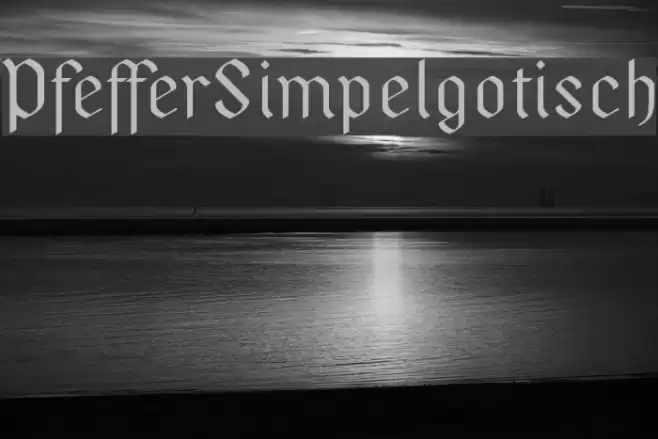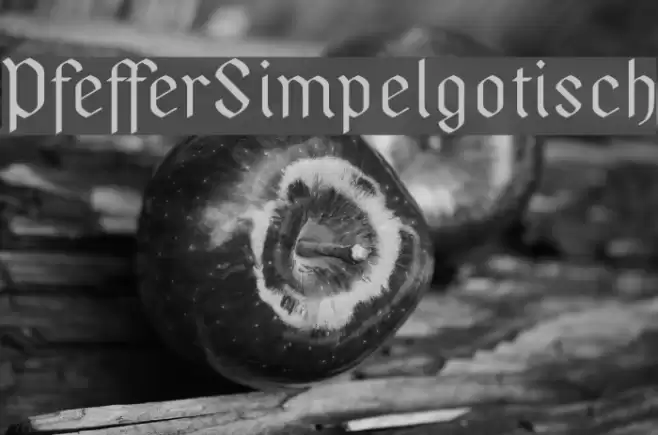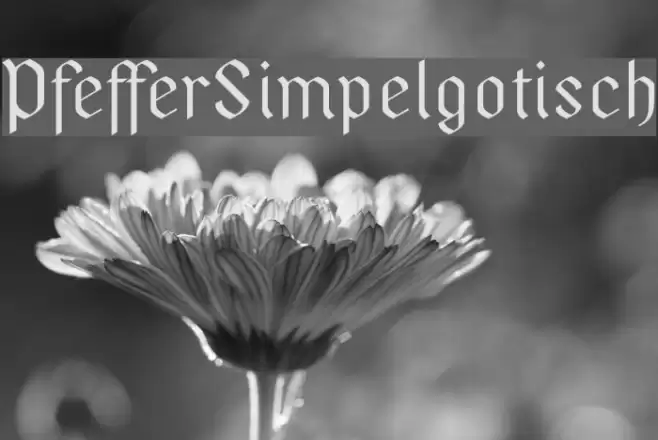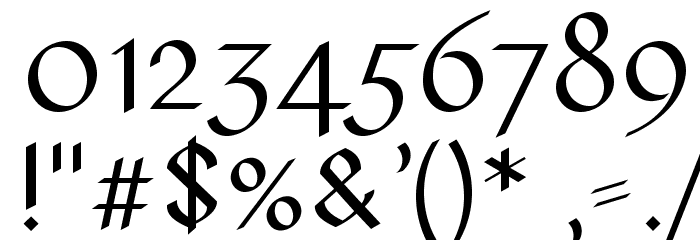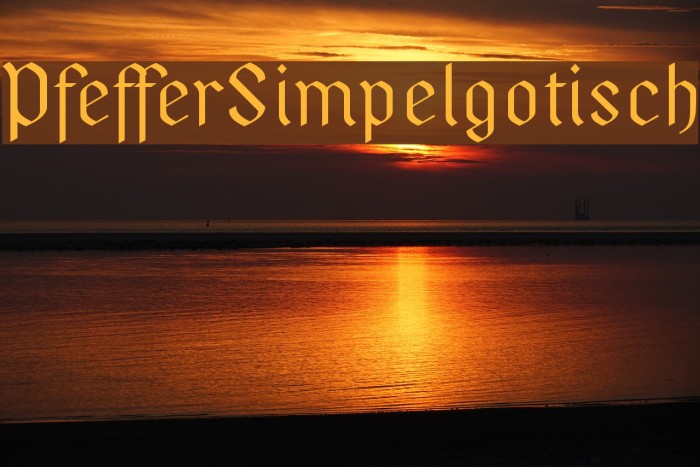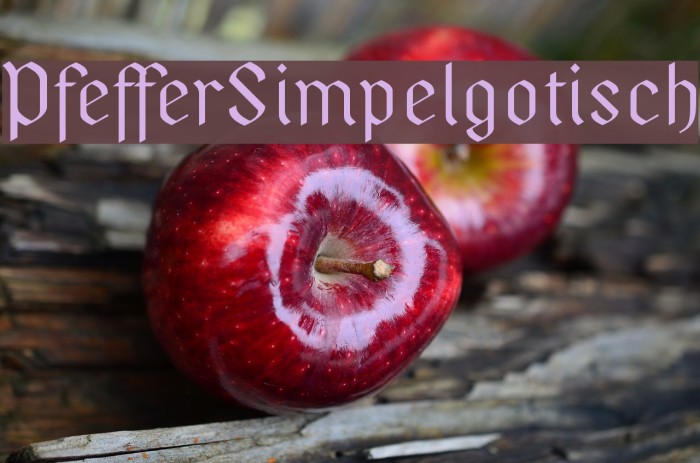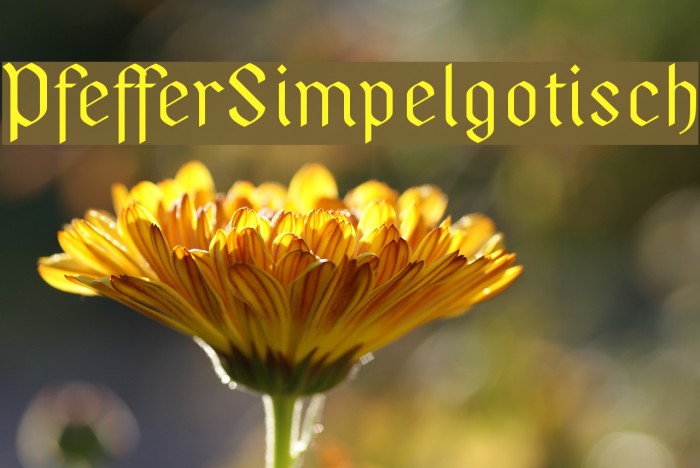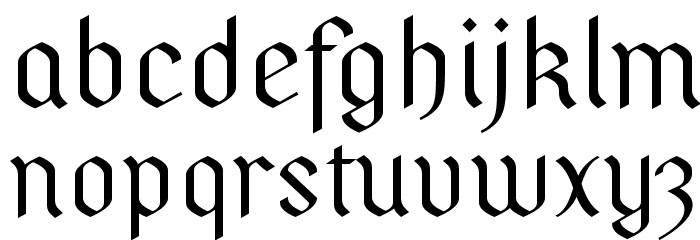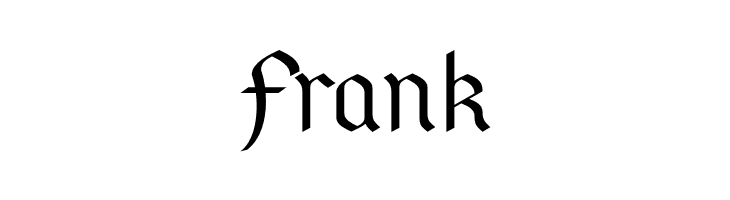
PfefferSimpelgotisch Font
PfefferSimpelgotisch Description
This font embodies a traditional blackletter style with sharp, angular strokes and a strong presence. The uppercase letters are tall and narrow, featuring pointed serifs and intricate details that evoke a sense of historical elegance. The lowercase letters maintain the same angular characteristics, providing a cohesive look throughout the typeface. Numbers are designed with a similar attention to detail, ensuring readability while maintaining the overall aesthetic. Special characters are crafted to match the ornate style, making this font suitable for decorative purposes.
A traditional blackletter font with sharp, angular strokes and ornate details from Uncategorized fonts.
- Proposed Projects: Ideal for projects that require a historical or gothic touch, such as invitations, posters, or branding for vintage-themed events.
- Overall Style: Vintage
- Use Case: Headlines, Logos, Decorative text